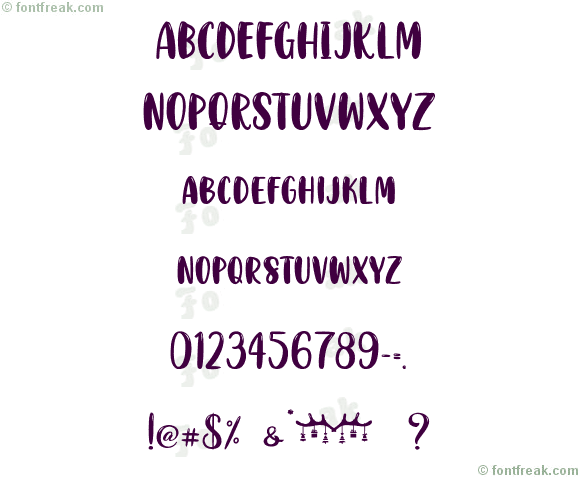
RedChristmasPersonalUse
About RedChristmasPersonalUse
The RedChristmasPersonalUse font, crafted by Suthi Srisopha, is a charming display typeface that captures the festive spirit of the holiday season. With its playful, handwritten style, this font exudes warmth and cheer, making it perfect for various seasonal designs. The strokes are slightly irregular, adding a personal touch that enhances its handcrafted appeal. Its medium weight and moderate contrast between thick and thin strokes create an inviting and approachable look. The spacing is well-balanced, ensuring readability while retaining a whimsical character that draws attention.
This font shines in specific use cases such as holiday greeting cards, where it can convey heartfelt messages in a visually appealing manner. It is also ideal for Christmas party invitations, giving a fun and festive flair to any gathering. For small business owners, incorporating the RedChristmasPersonalUse font into promotional materials can create a warm atmosphere that resonates with customers during the holiday season. Additionally, this font can enhance the aesthetic of social media posts, making content stand out in crowded feeds.
Targeted primarily at graphic designers, small business owners, and content creators, this font offers a unique blend of style and functionality. Its personal touch makes it suitable for anyone looking to inject a dash of holiday spirit into their projects.
The RedChristmasPersonalUse font free download sets itself apart with its delightful and festive characteristics. Its distinctively playful design not only captures the essence of Christmas but also provides endless creative possibilities for personal and professional projects alike. Whether you’re designing for a cozy holiday gathering or crafting eye-catching promotional materials, this font is sure to leave a memorable impression.